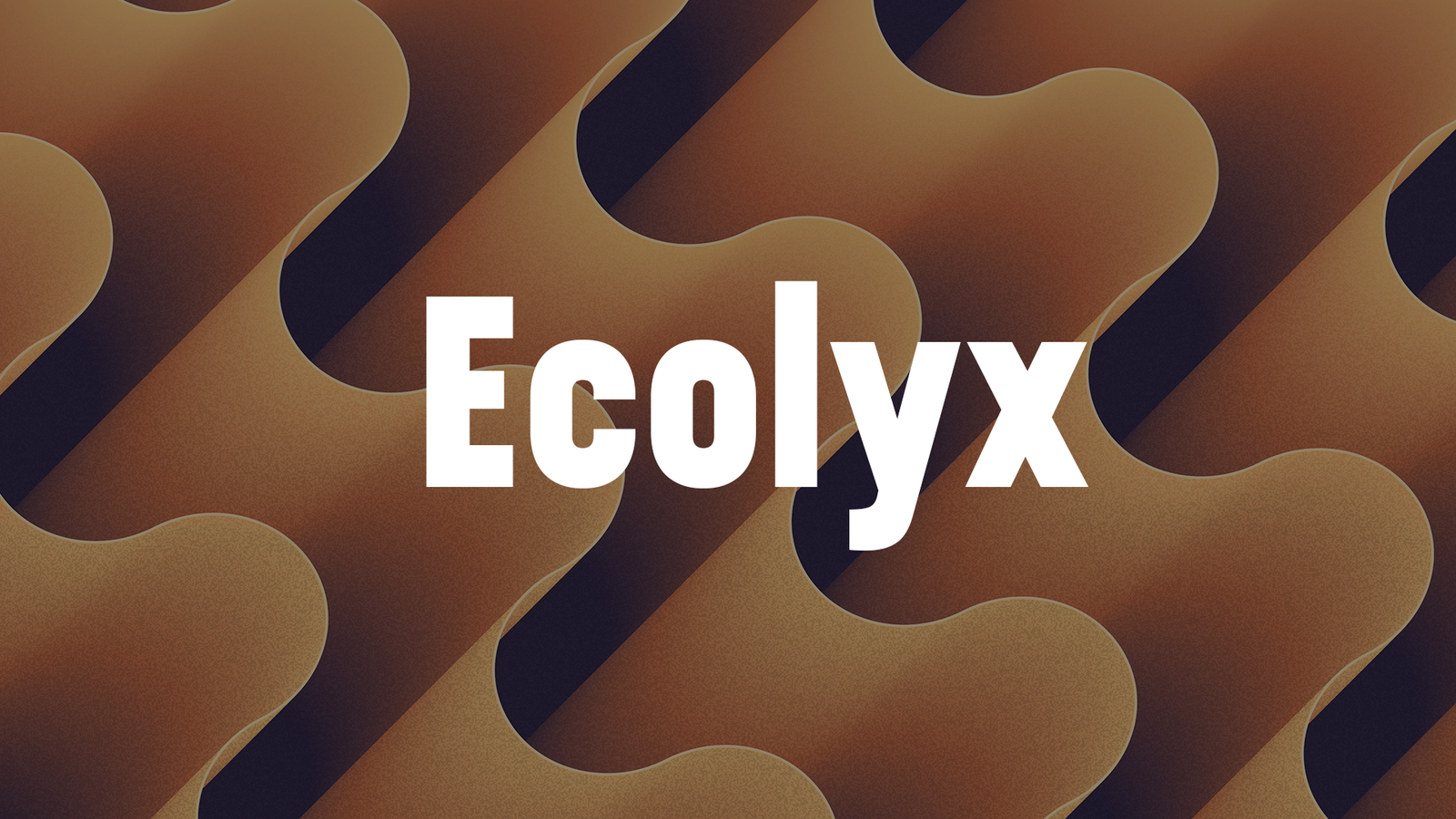
Display fonts are perfect for making a bold impression in headlines, branding, and advertising. These fonts often have unique shapes, high contrast, or decorative elements that set them apart. Popular free choices include **Anton**, a strong sans-serif with impactful weight, **Abril Fatface**, a stylish serif with dramatic curves, and **Rubik**, which blends modern aesthetics with versatility. Display fonts work best at large sizes, where their details and personality shine. Whether for posters, website banners, or packaging, they add energy and visual appeal. Pairing them with clean, readable body fonts ensures a balanced design. Many free display fonts are available on platforms like FreezyStock and Google Fonts, making it easy to create eye-catching typography for any project.